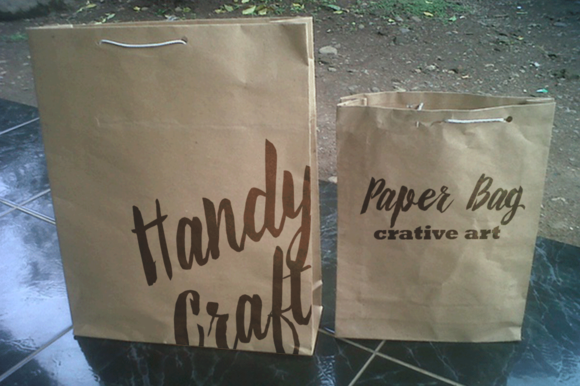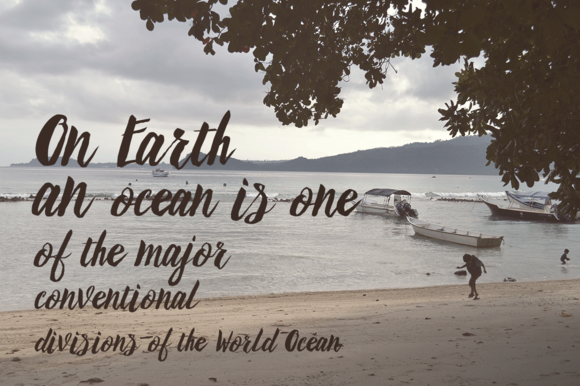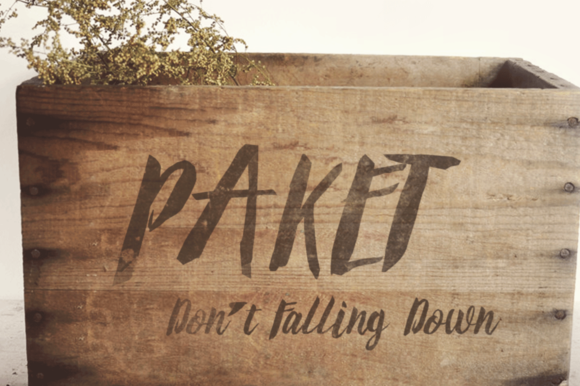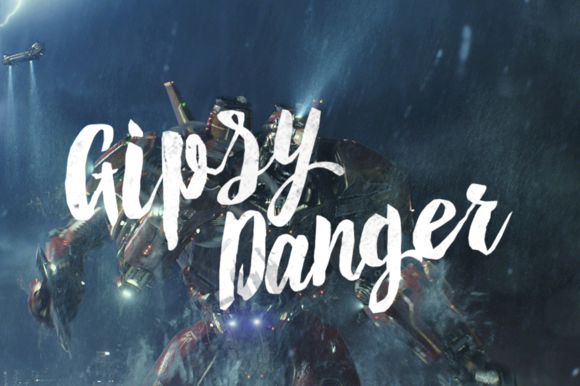
Introduction to Panthers Font Font
Fonts play a crucial role in design, and the Panthers Font font is a typeface that brings both character and versatility to any project. Whether you’re working on a branding project, a website, or a print design, the Panthers Font font offers a unique style that can elevate your work.
Panthers is a hand-drawn or hand-inked script font with a fun, imperfect baseline.
Itβs nice and bold plus a little gritty β Perfect for creating organic, fluid typography on products, branding, headings, logos, invitations, t-shirt designs, greeting cards, posters, labels, book covers, brochures, and much more .
Key Features of Panthers Font Font
Why Choose Panthers Font Font?
The Panthers Font font is more than just a typeface β it’s a design tool that helps you communicate your message with style and clarity. Its unique character set and versatile design make it suitable for a wide range of applications, from elegant invitations to bold headlines.
With its carefully crafted letterforms and balanced proportions, the Panthers Font font ensures readability and visual appeal across all mediums.
What makes Panthers Font font special?
The Panthers Font font stands out with its unique design, exceptional readability, and versatility across various design applications.